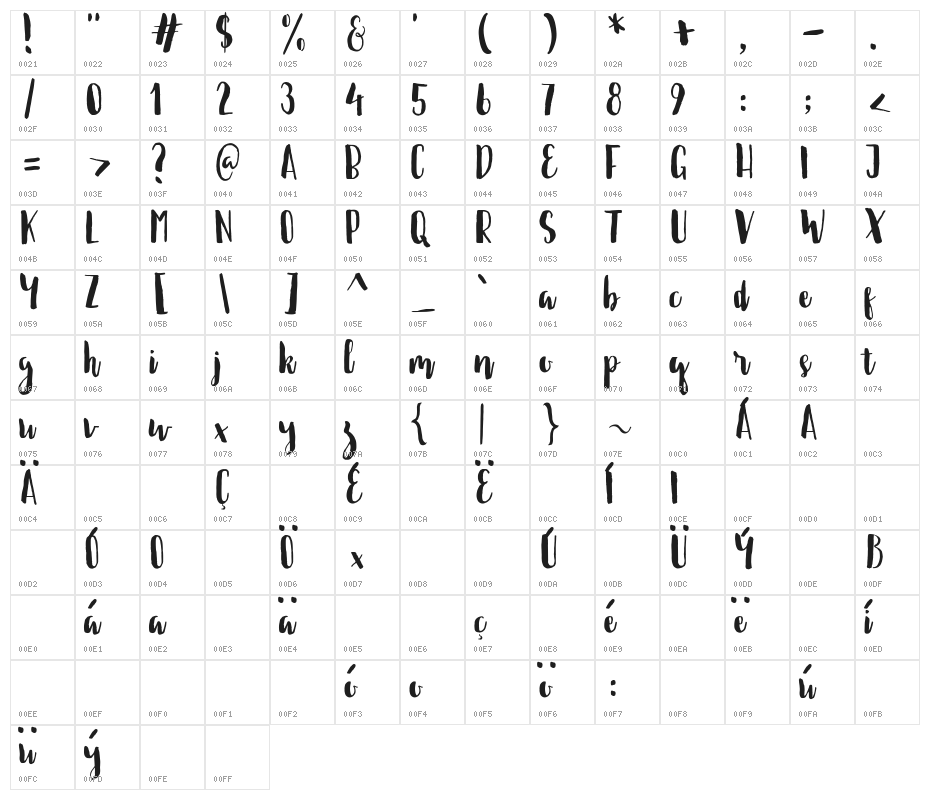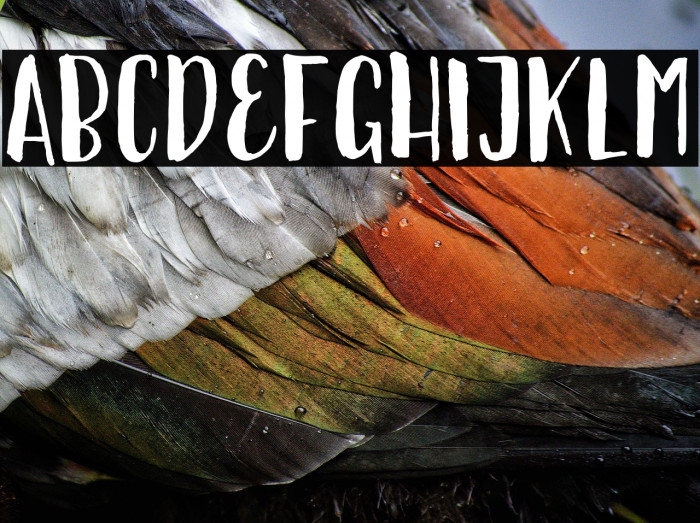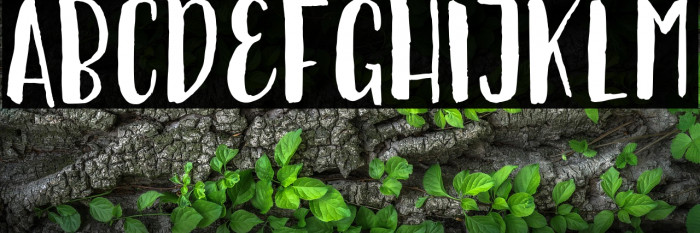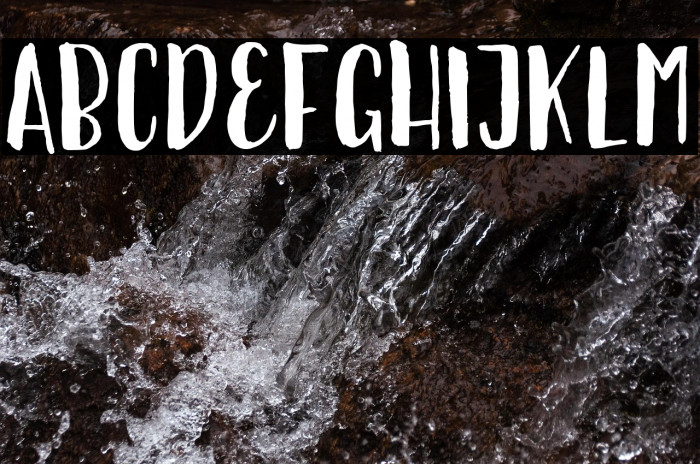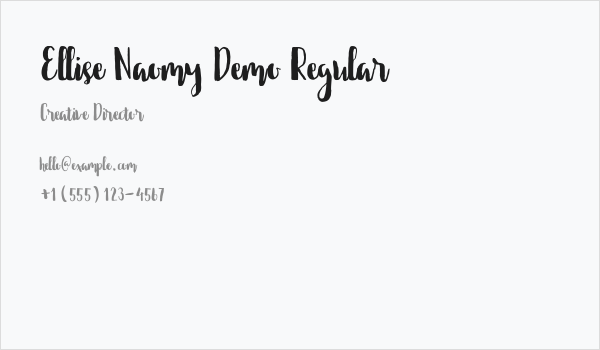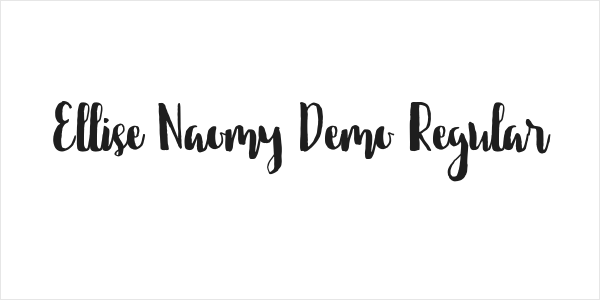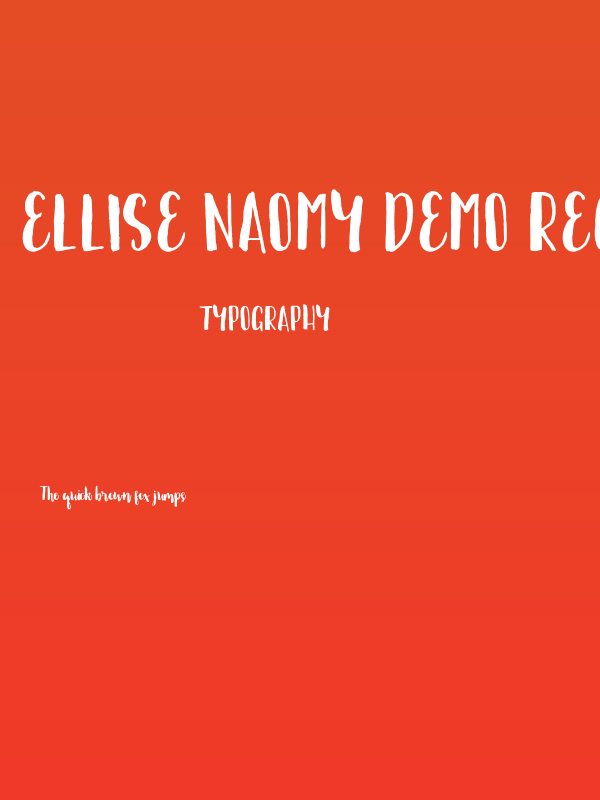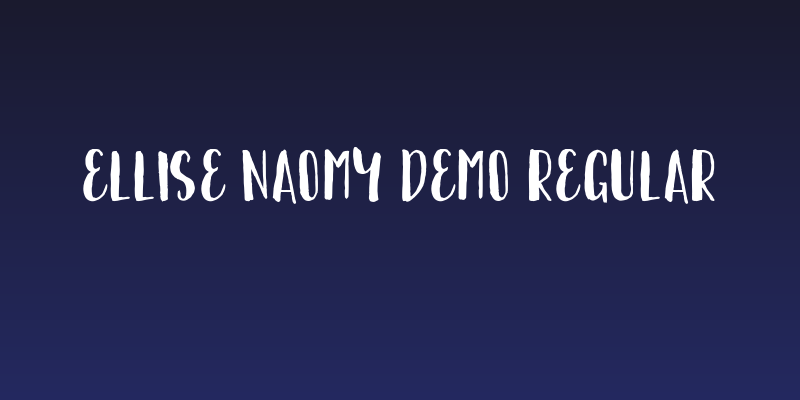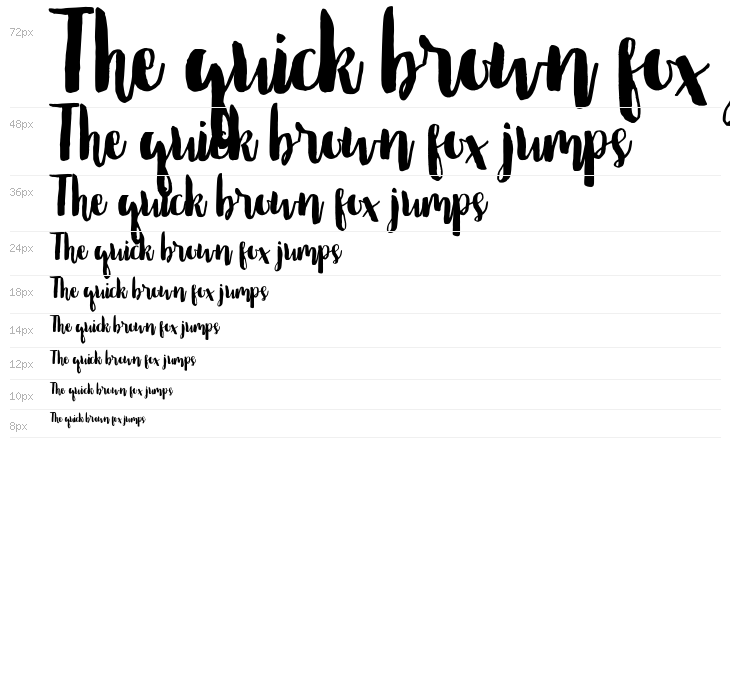
Ellise Naomy Demo Regular Font
Ellise Naomy Demo Regular Description
This font features a bold, expressive style with a hand-painted appearance. The uppercase letters are tall and slightly condensed, with a playful yet elegant flair. The lowercase letters maintain a consistent flow, with some characters featuring distinctive loops and curves that add to the font's charm. The numbers are bold and easy to read, complementing the overall style. Special characters are creatively designed, maintaining the font's artistic and dynamic feel. This font's brush-like strokes give it a lively and energetic personality, making it suitable for creative and eye-catching designs.